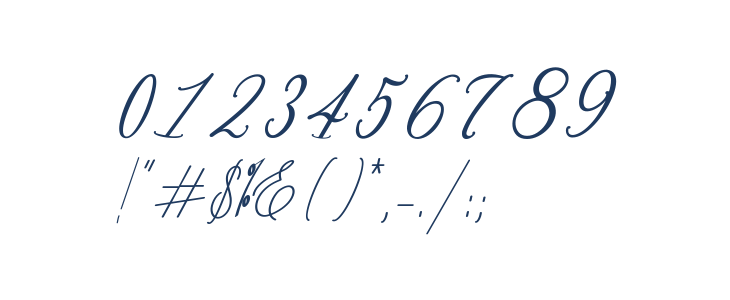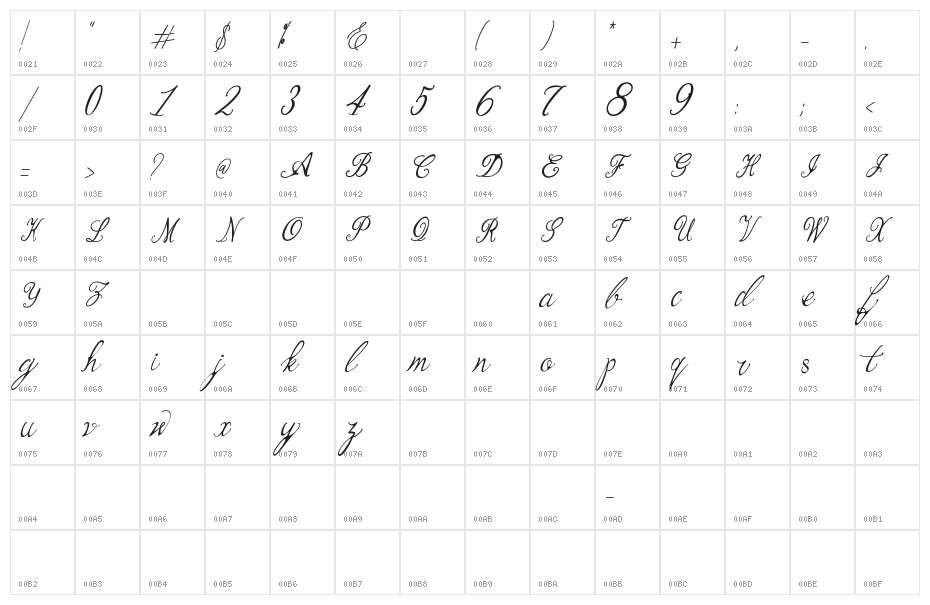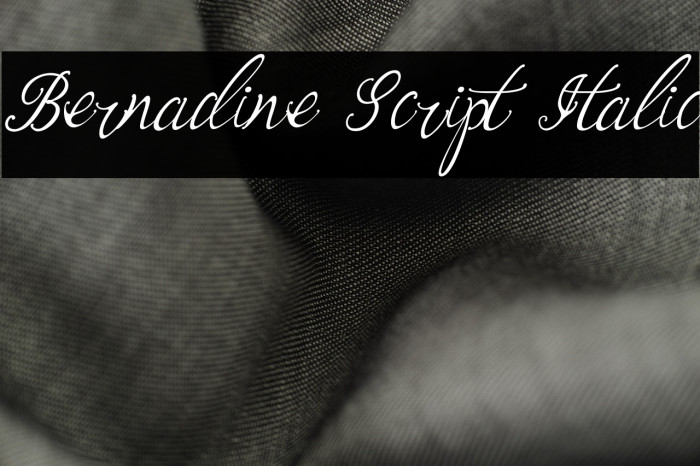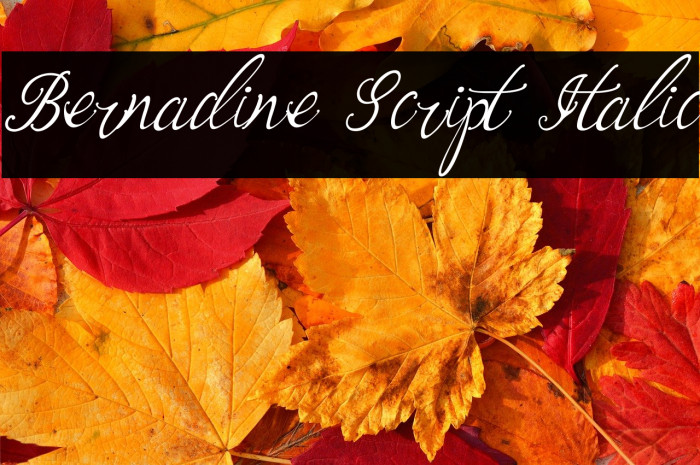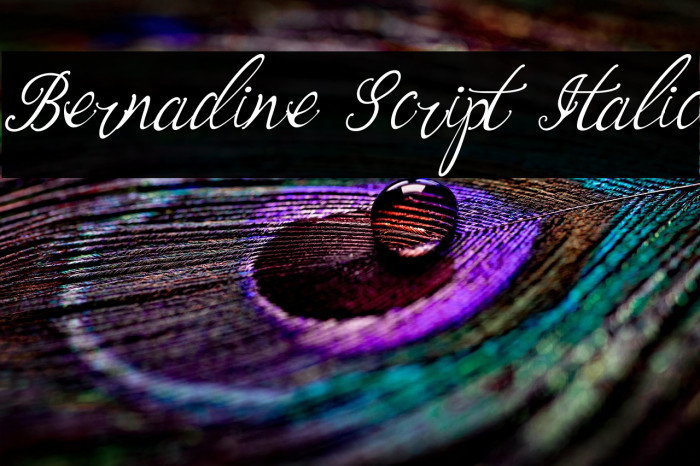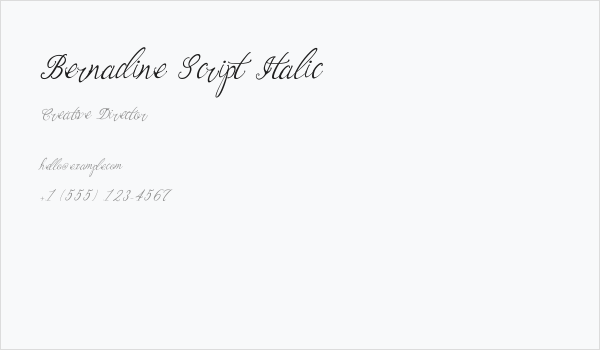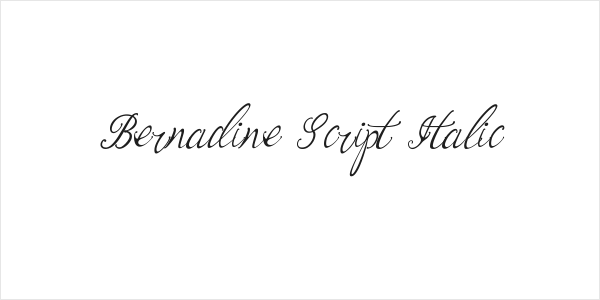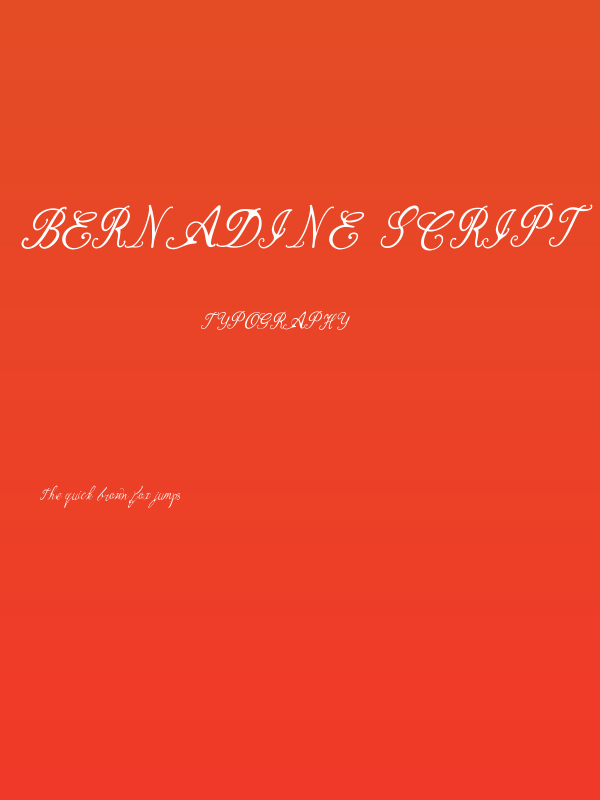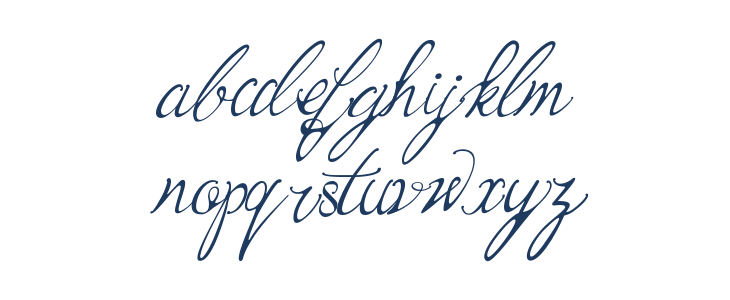
Bernadine Script Italic Font
Bernadine Script Italic Description
This elegant script font features a flowing, cursive style with intricate loops and flourishes. The uppercase letters are ornate, with sweeping lines that convey a sense of sophistication and grace. The lowercase letters maintain a consistent slant, enhancing the fluidity and connectedness typical of script fonts. Numbers and special characters are designed with similar attention to detail, ensuring a cohesive look across all elements. This font's italic nature adds to its dynamic appearance, making it ideal for projects that require a touch of elegance and personal flair.
Overall StyleElegant
Use CaseLogos, Invitations, Decorative text
Proposed ProjectsIdeal for wedding invitations, greeting cards, elegant branding, and personal stationery.